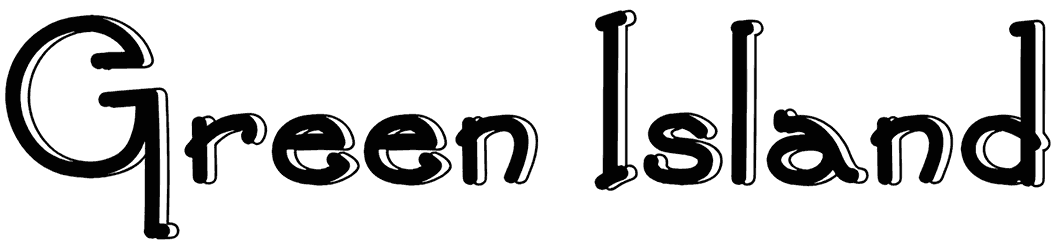
Green Island Font
Nostalgia and groove radiate from retro fonts, and this one does the same to the reader. The Green Island font contains long characters that have a painted and upbeat look to them that we have seen on our beloved summer festival banners. You can use Green Island in retro movie and book titles, channel banners, and fashion blogs to give a shadowy style to your words.